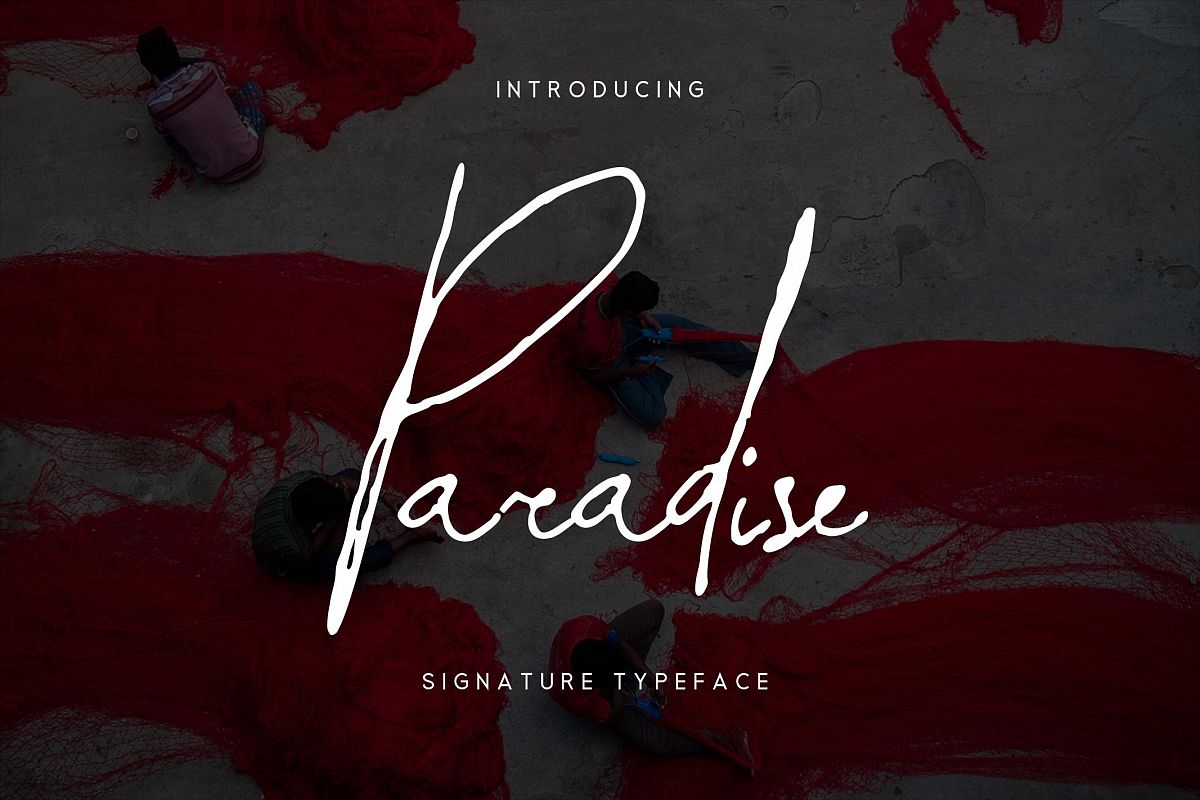
Paradise | Signature Typeface
Paradise
**Paradise | Signature Typeface**
Introducing Paradise Typeface is Signature font. Paradise is an elegant, modern calligraphy font, designed to give an imperfect hand-sketched look at your work. It is suitable for a variety of applications such as stationery design, invitations, logos, labels, posters, merchandise products, etc.